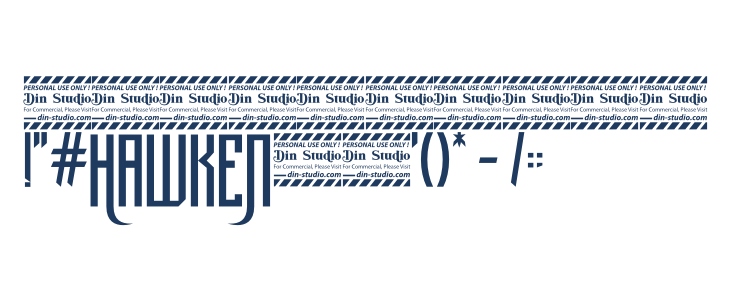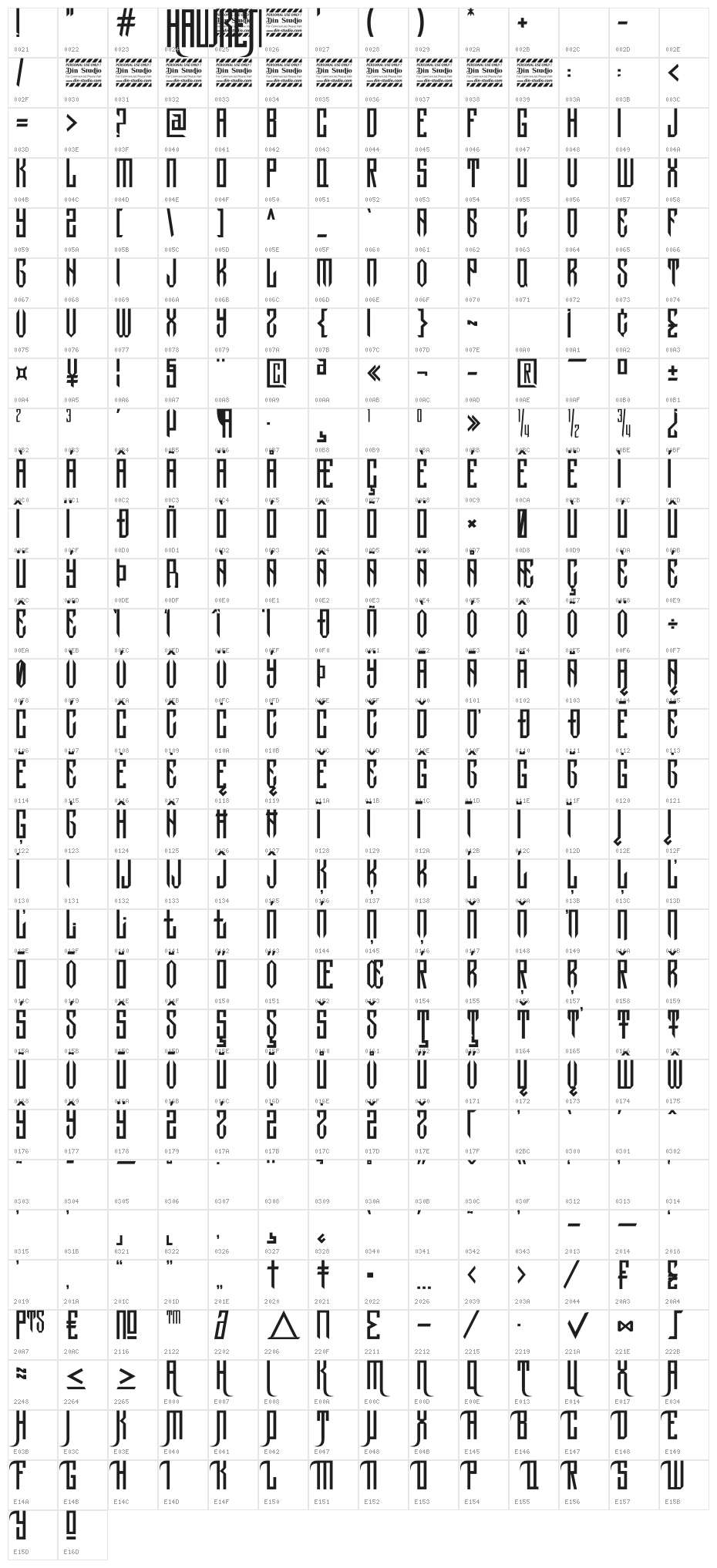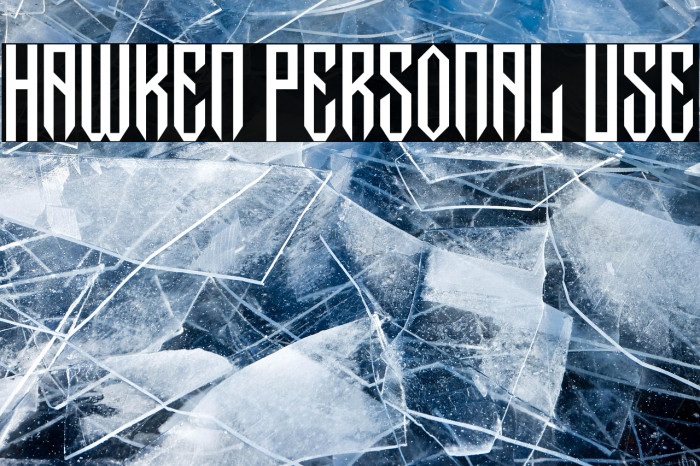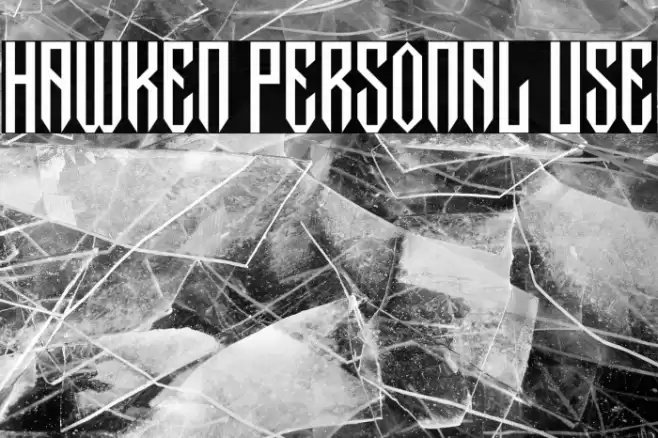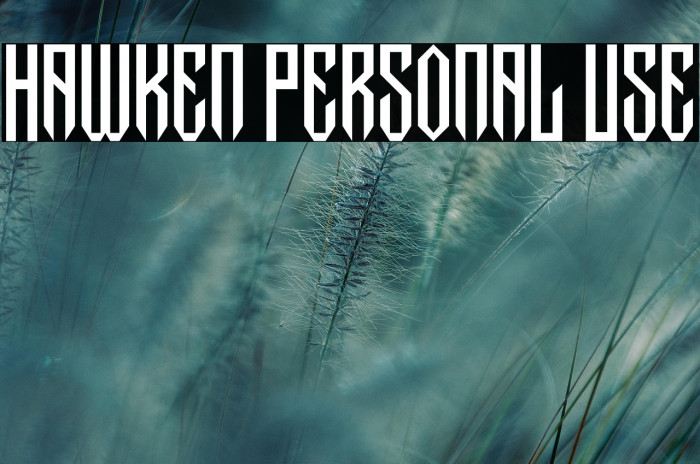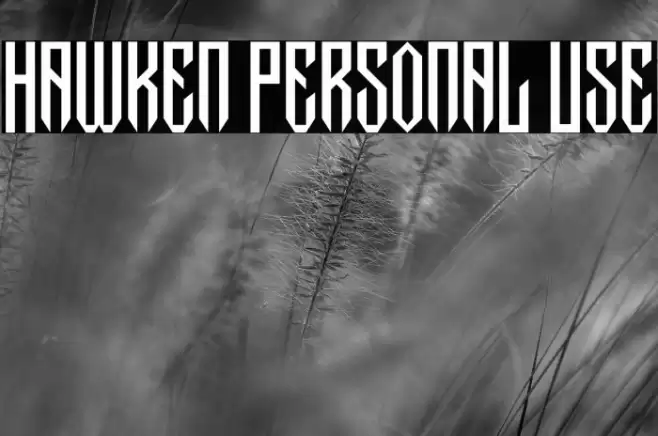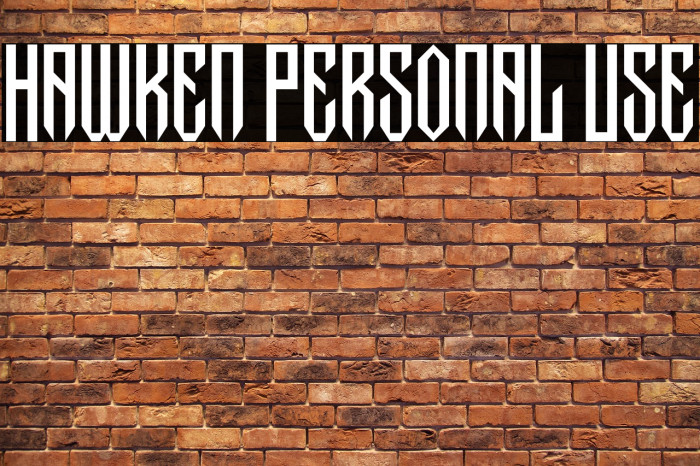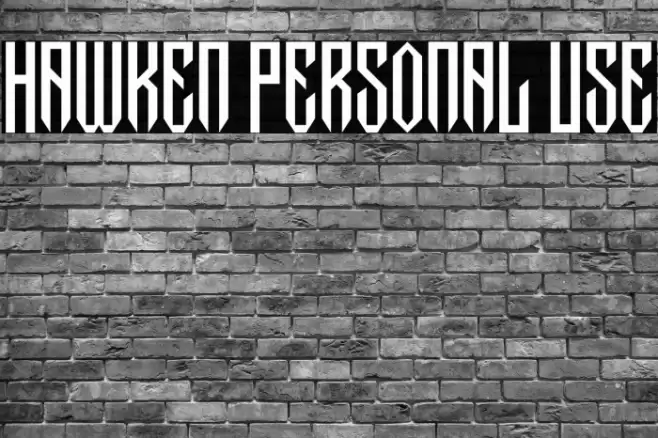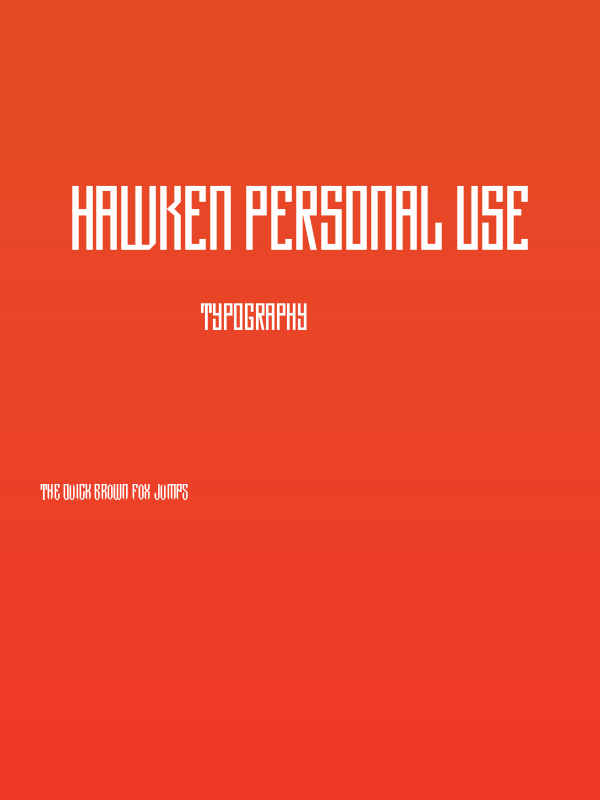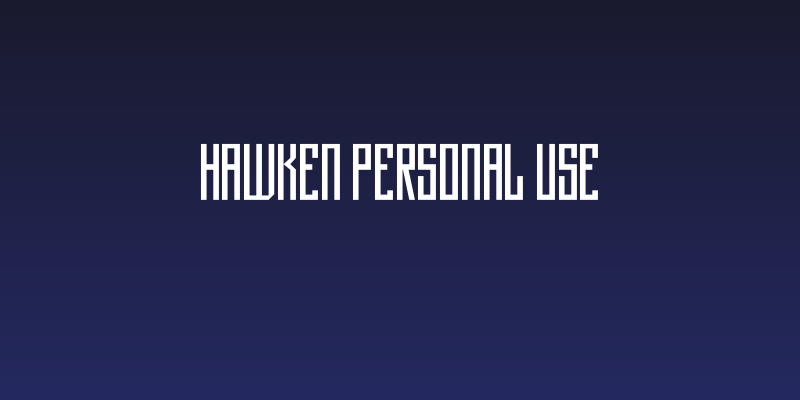
Hawken Personal Use Font
Hawken Personal Use Description
This font features a bold and striking design with sharp, angular edges and a geometric structure. The uppercase letters are tall and narrow, giving a sense of height and strength. The lowercase letters maintain the same angular style, creating a cohesive look throughout. The numbers and special characters are designed to match the overall aesthetic, with consistent line thickness and angular forms. This font's unique style makes it stand out, ideal for projects that require a strong visual impact.
| Proposed Projects | Ideal for posters, logos, branding, and headlines that need a bold and impactful look. |